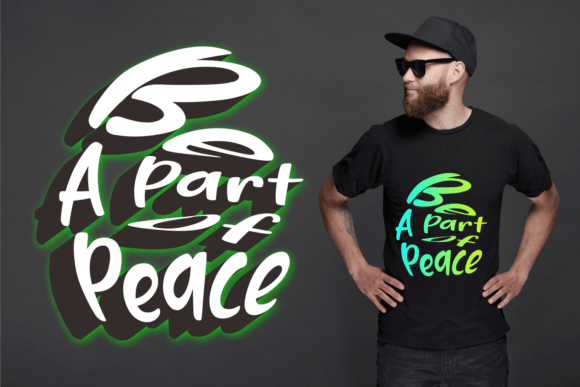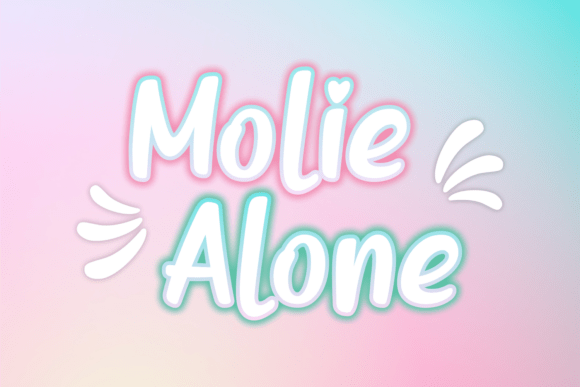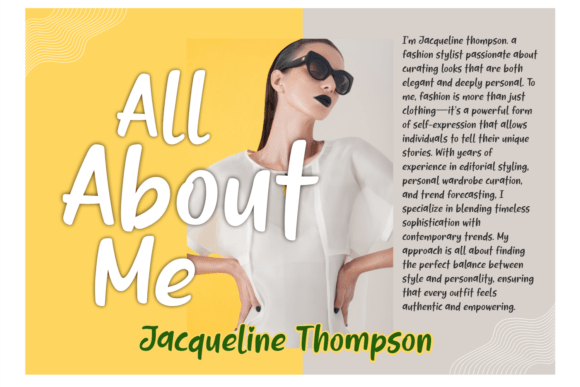
Introduction to Molie Alone Font
β€œMolie Alone” is a playful script-like font with joyful rounded letterforms and uniform thickness.
The nuanced detailing, like a little heart on the letter β€˜i’, crafts a lighthearted and friendly ambiance This effervescent font, with its relaxed, flowing strokes and proportional kerning, ensures optimal readability at every size.